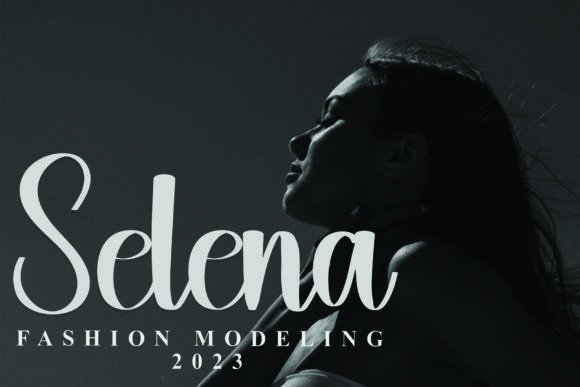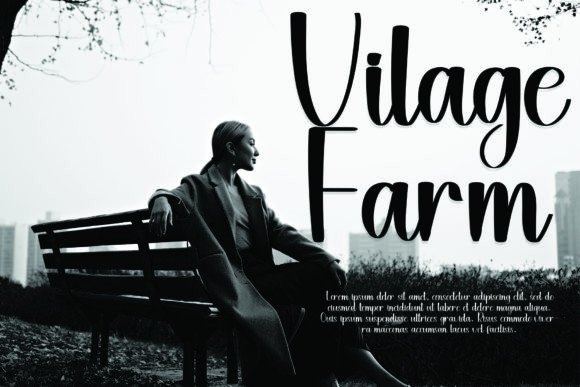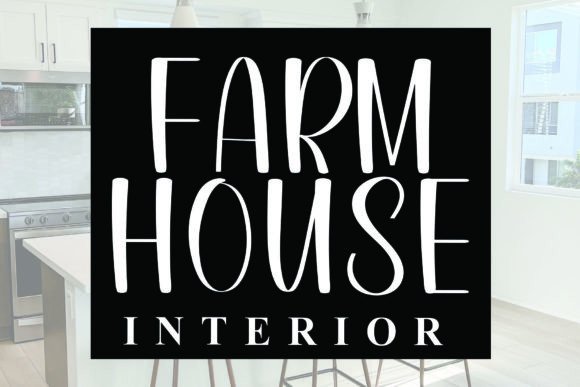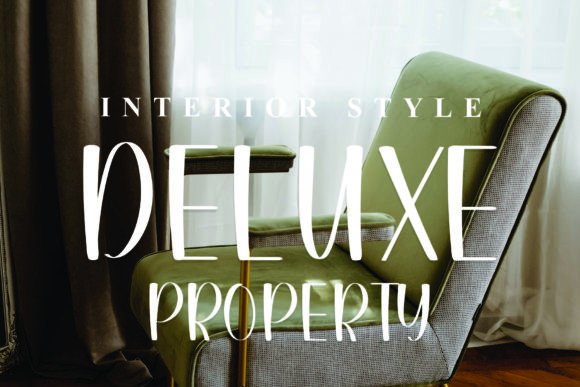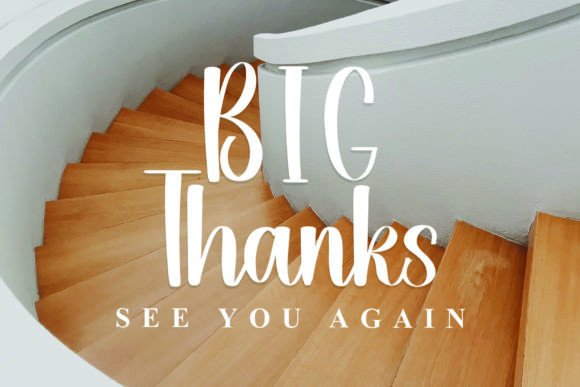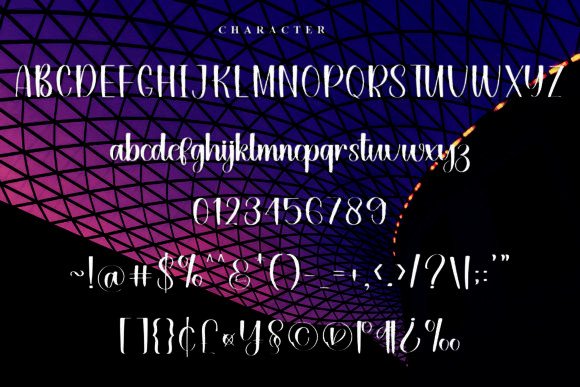
Introduction to Slims Font
Slims is an enchanting handwritten font.
This versatile typeface has a wide spectrum of applications ranging from greeting cards to headlines and is guaranteed to add a romantic feel to your next project .
Key Features of Slims Font
Why Choose Slims Font?
Slims Font offers exceptional quality and versatility, making it a valuable addition to your design toolkit. Whether you’re creating for personal projects or commercial use, Slims Font delivers professional results.